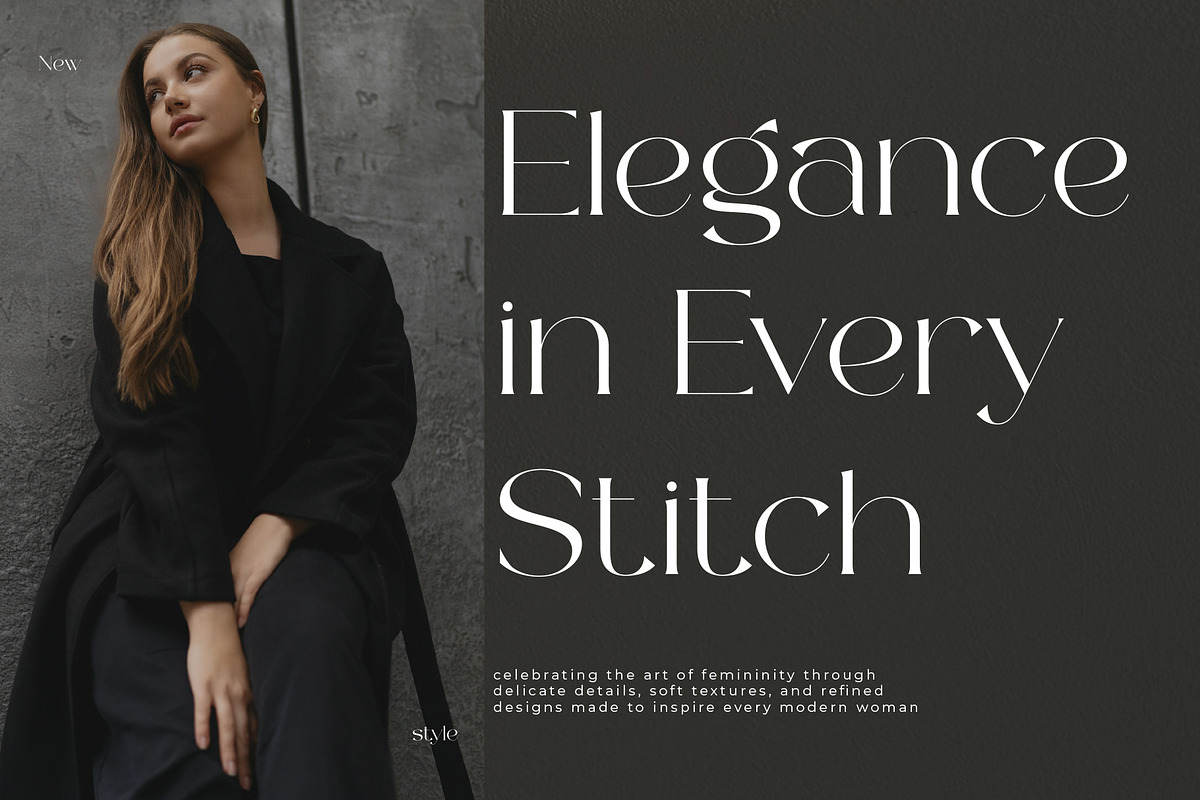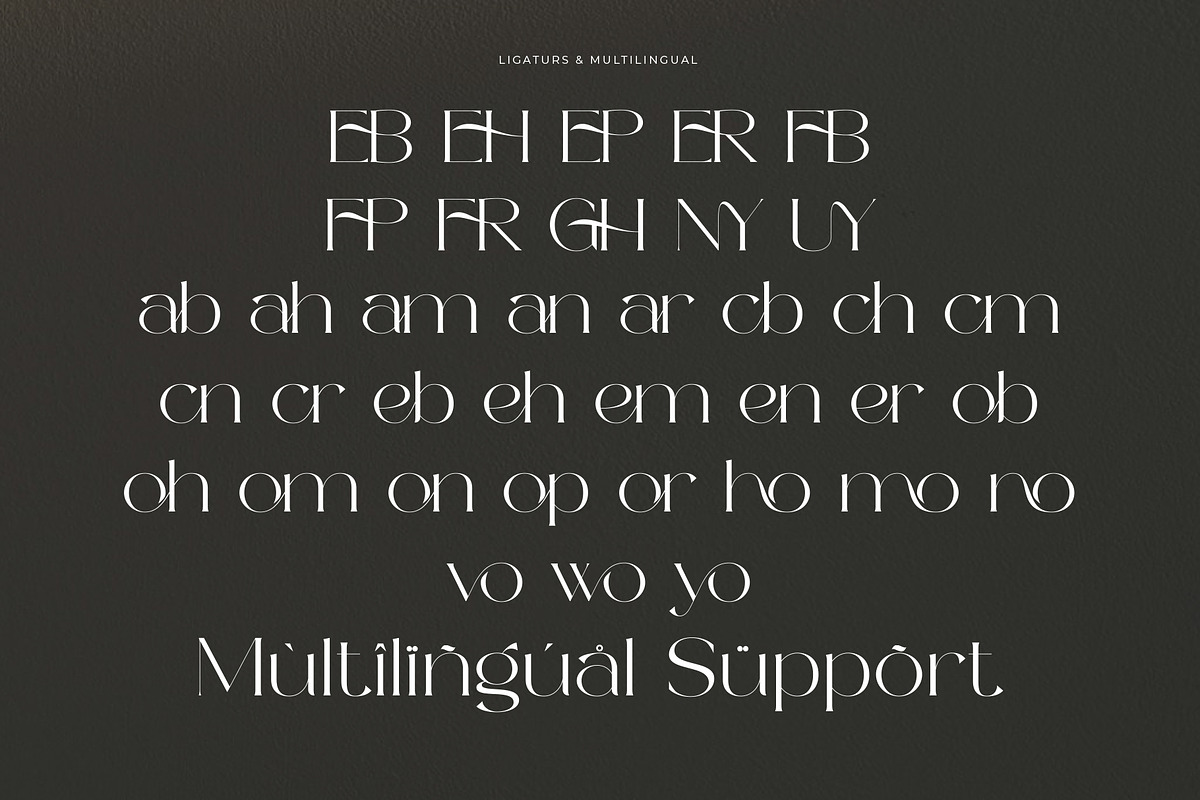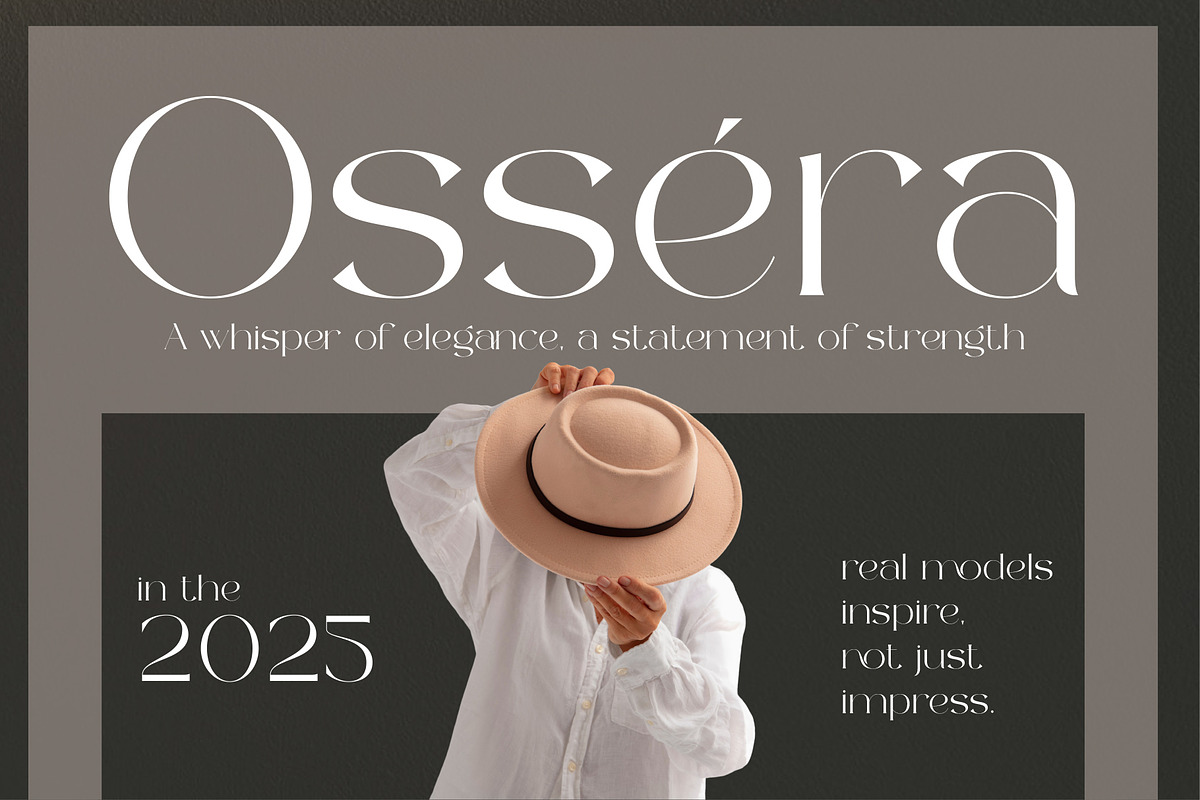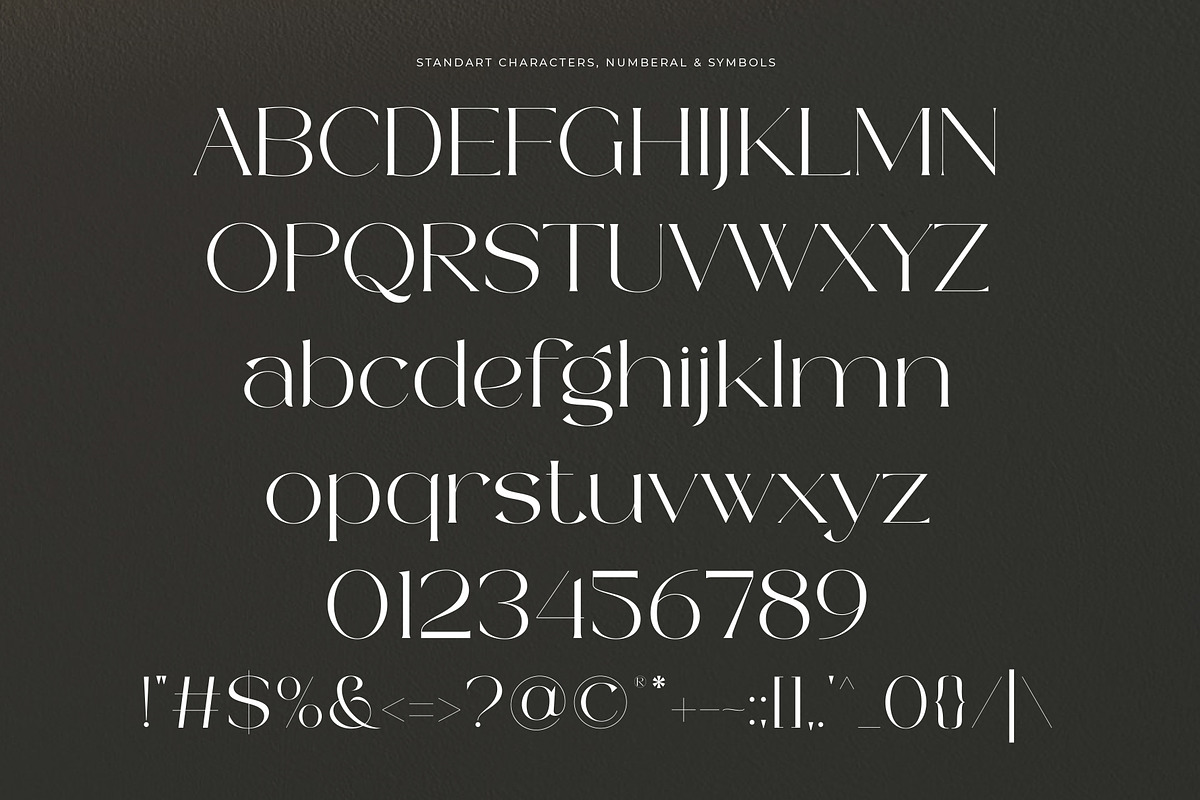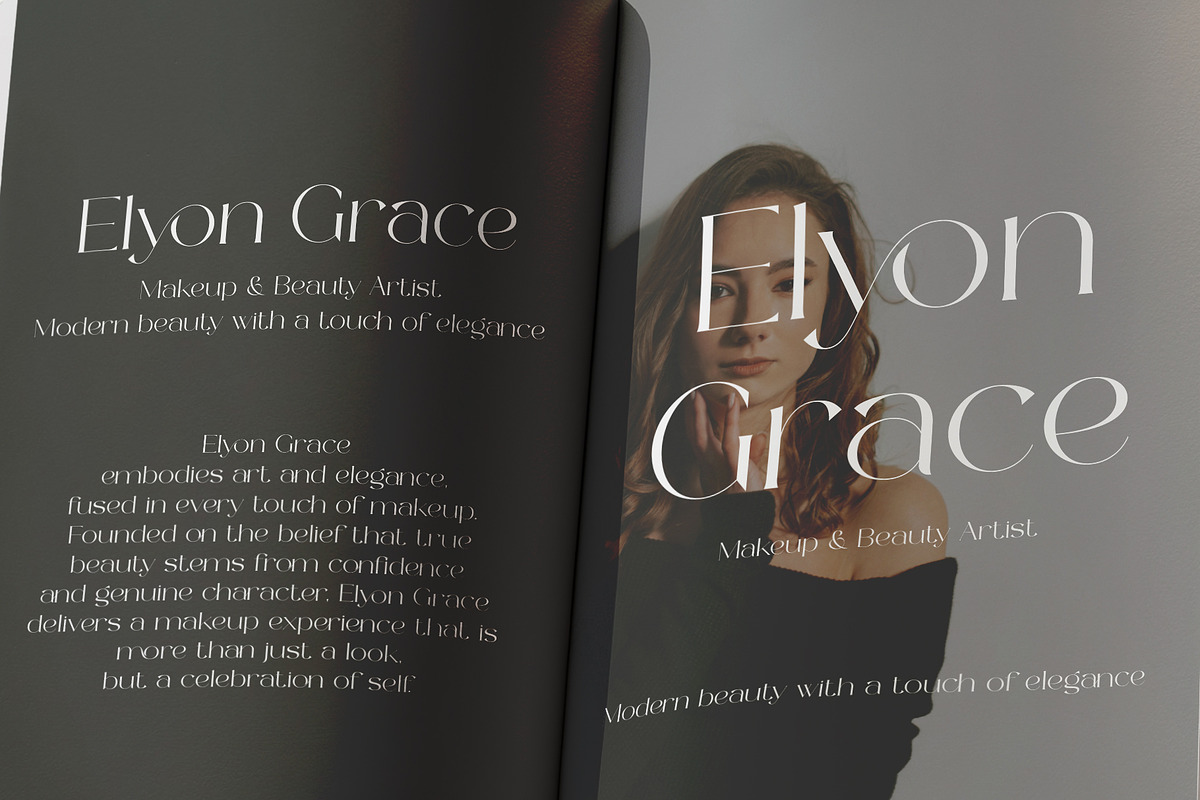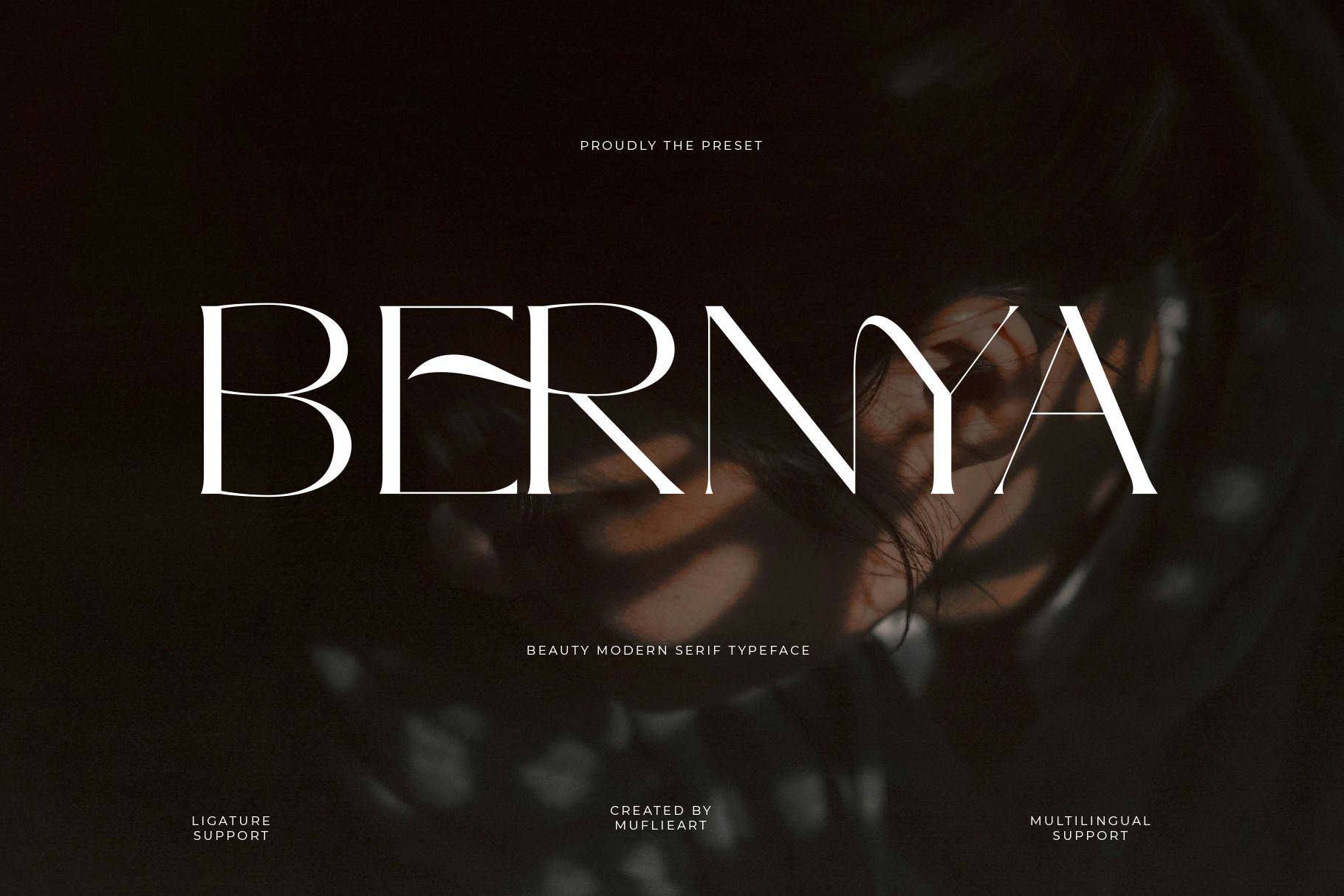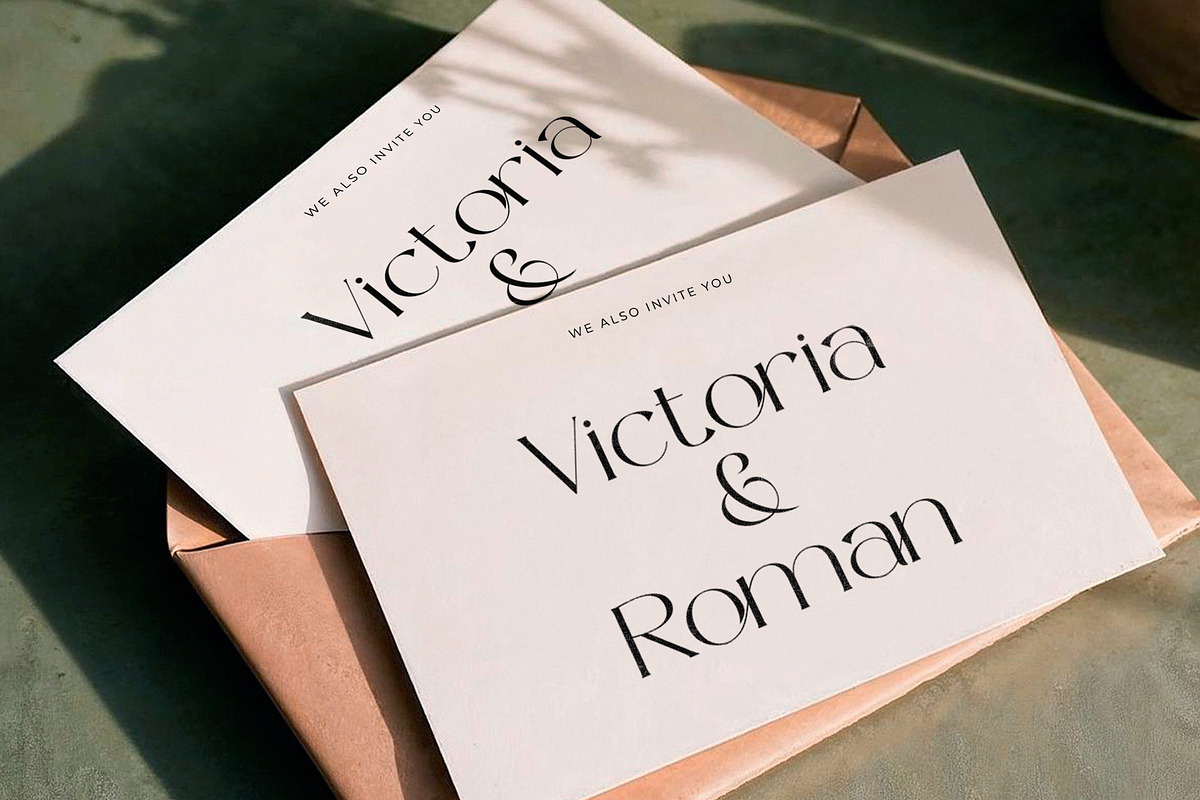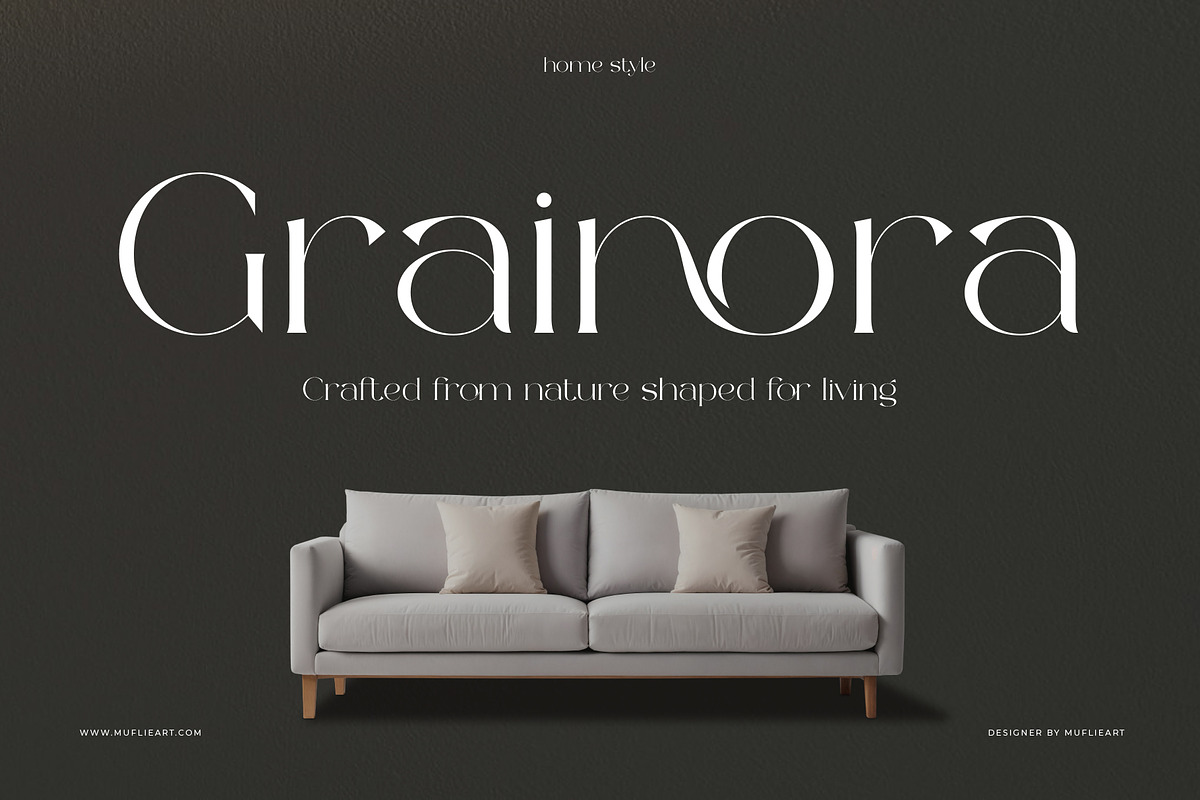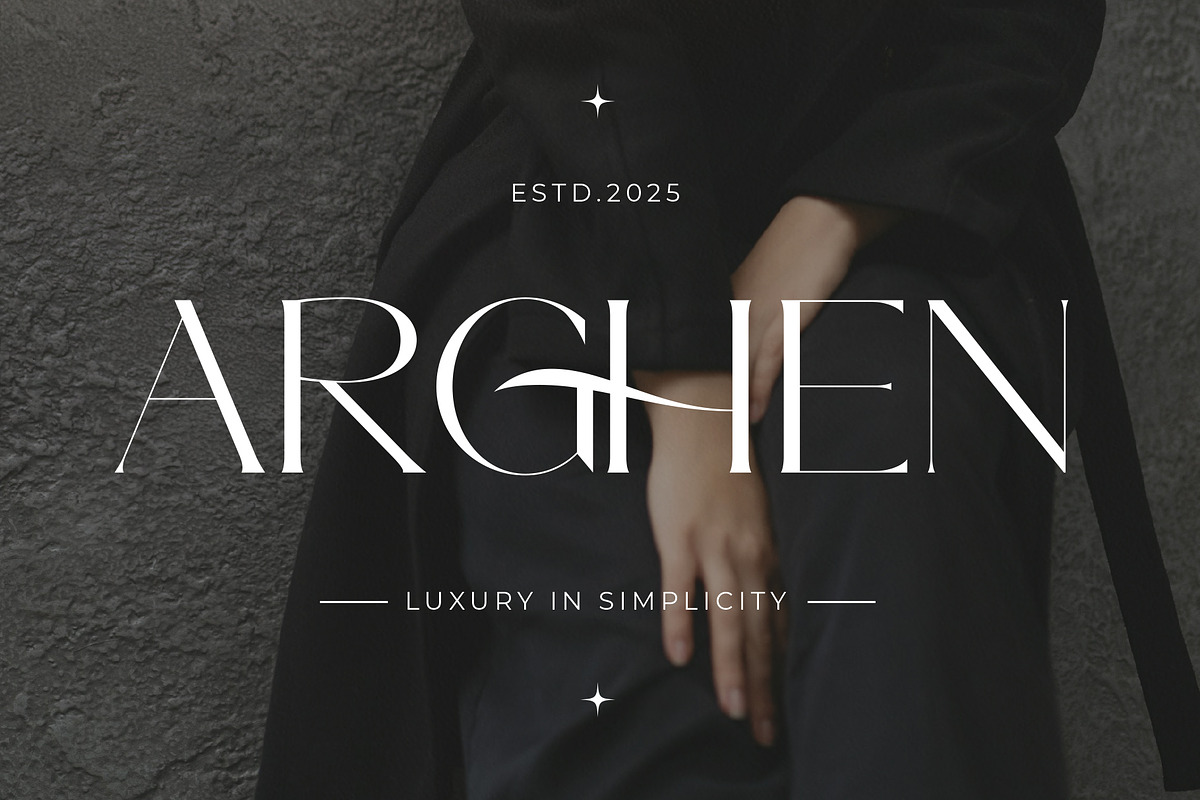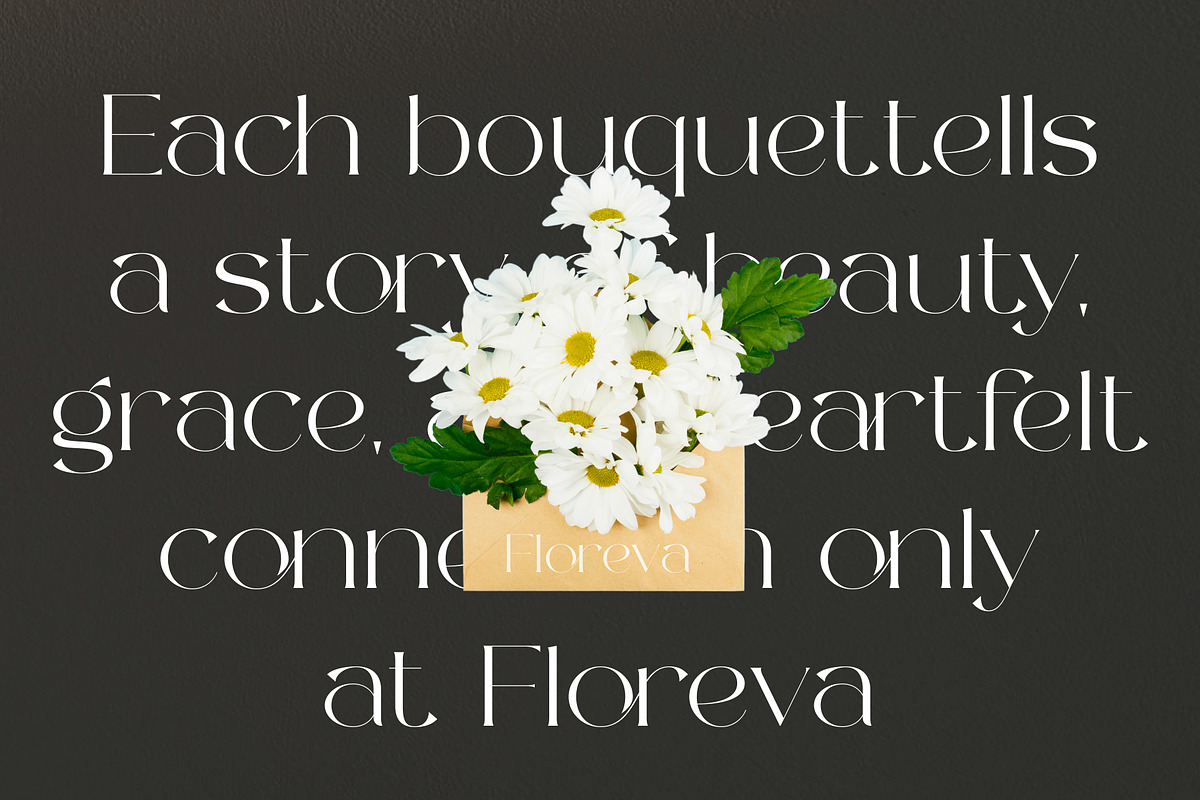
Bernya|Beauty Modern Serif Typeface
Bernya – Beauty Modern Serif Typeface Bernya is a modern serif typeface that blends classic elegance with a touch of contemporary style. Designed with refined details and balanced proportions, this font lends a luxurious, feminine, and professional feel to any design.
This font is ideal for a variety of creative projects such as branding, logos, editorials, packaging, magazines, wedding invitations, and social media. Each letter in Bernya is designed with elegant yet legible characters, making it the perfect choice for premium designs that want to appear charming and sophisticated.
✨ Key Features:
- Full uppercase & lowercase letters
- Full punctuation
- Multilingual support (Western & Central Europe)
- Several elegant ligatures for a more natural typographic appearance
The Bernya font will lend a graceful, modern, and professional feel to any design project — perfect for designers who want to create timeless and highly aesthetic work.